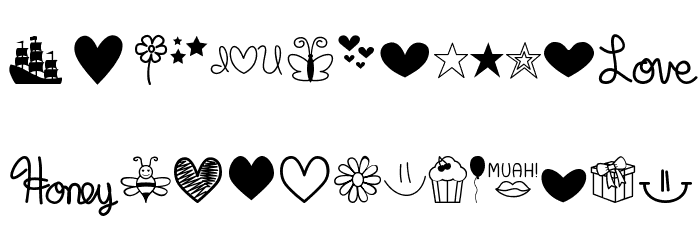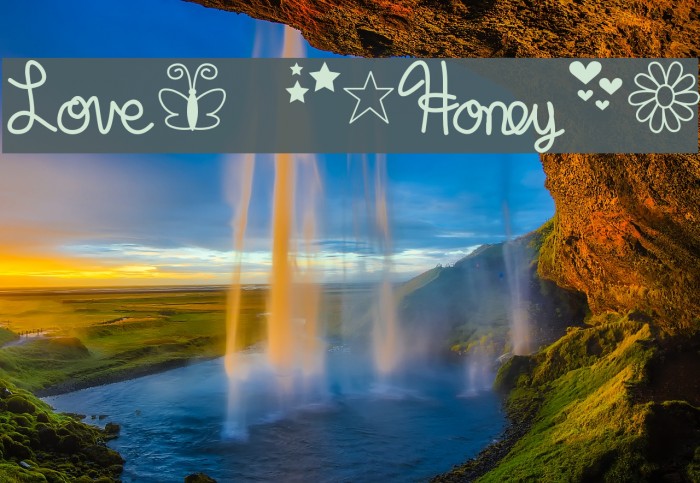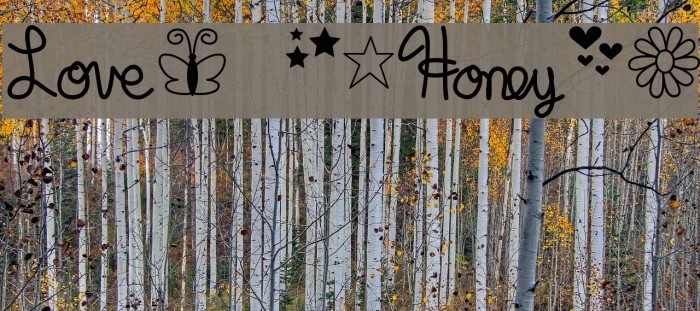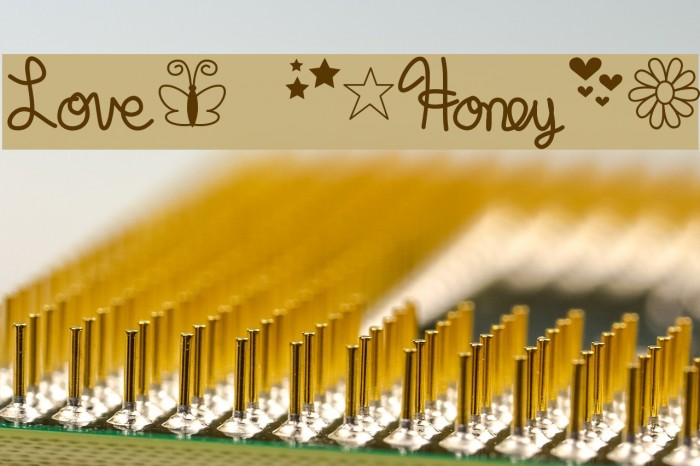
MF Dings Font
This is a decorative dingbat font featuring a variety of playful and whimsical symbols. The characters include hearts, stars, flowers, butterflies, and other charming icons. The style is hand-drawn, with a mix of bold and thin lines that add a lively and fun touch. The symbols are designed to convey a sense of joy and creativity, making them ideal for projects that require a touch of whimsy and personality. The overall look is casual and friendly, perfect for crafting, scrapbooking, and other creative endeavors.
A playful dingbat font with whimsical symbols like hearts and stars.
- Proposed Projects: Ideal for crafting, scrapbooking, greeting cards, and playful design projects.
- Use Case: Logos, Decorative elements, Crafting projects